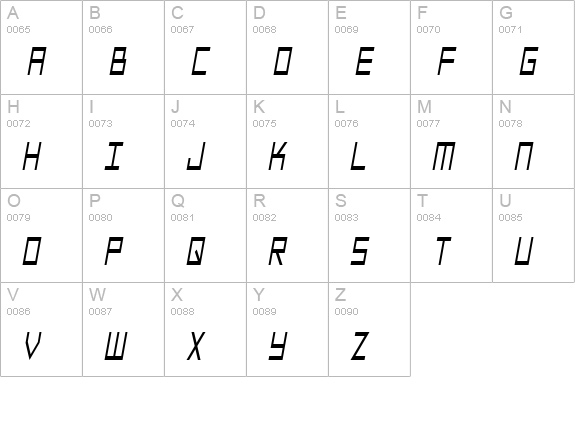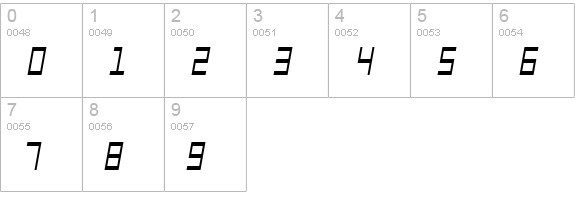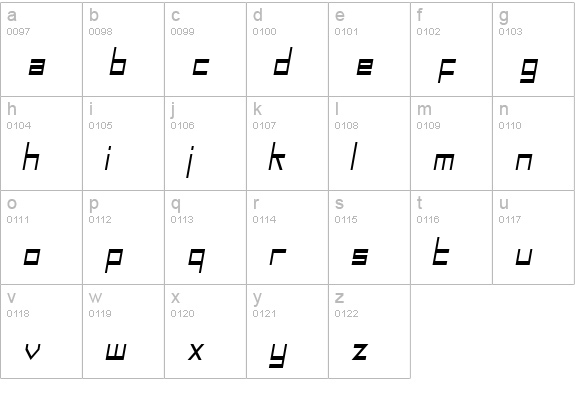
SF Square Head Condensed Italic Font Details
SF Square Head Condensed Italic is a distinctive, condensed-width, italic variant in the SF typeface family \xE2\x80\x94 well suited to design and typography projects.
SF Square Head Condensed Italic is a sleek and stylish font that exudes a sense of modernity and sophistication. Its condensed and italicized design adds a touch of elegance to any project, making it perfect for headlines, titles, and branding materials. The sharp angles and clean lines give this font a distinct and eye-catching look. With its versatility and contemporary appeal, SF Square Head Condensed Italic is an excellent choice for both digital and print designs. Whether you're creating a website, designing a logo, or crafting a poster, this font will effortlessly enhance the overall visual impact of your work. And the best part is, SF Square Head Condensed Italic is completely free! You can easily download it from FontsMarket.com, a trusted source for high-quality fonts. So, not only will you be able to elevate your designs with this exceptional font, but you can also do it without spending a dime. Don't miss the opportunity to add SF Square Head Condensed Italic to your font library. Its modern aesthetic and freely available nature make it a valuable asset for any designer or creative professional. Download it today and let your creativity soar!